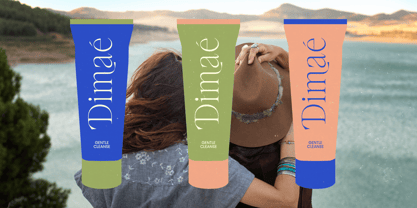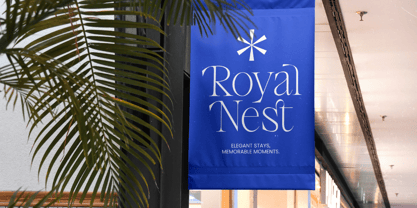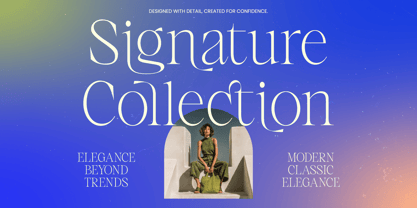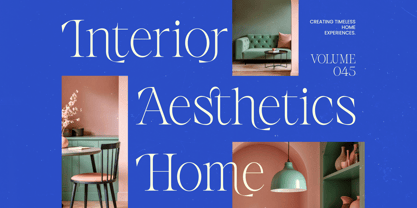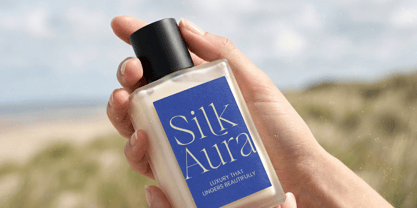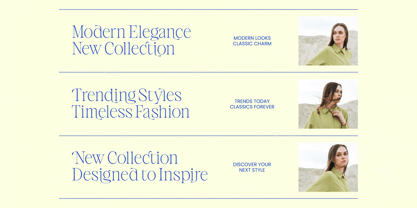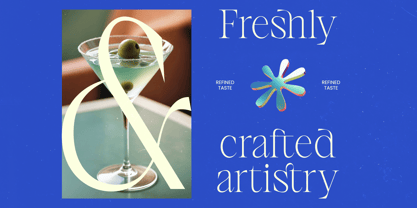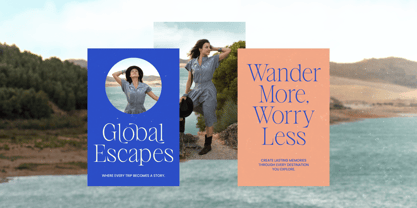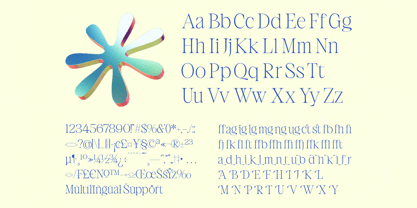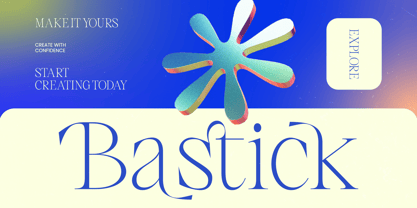
Bastick
by Timelesstype Studio
The Bastick Font Family was designed by Heru Utama Putra and published by Timelesstype Studio. Bastick contains 2 styles and family package options. More about this family
Elevate your visual identity with an unmatched sense of sophisticated elegance. Bastick - Thin Serif Display is a masterpiece of modern typography, blending refined aesthetics with a contemporary edge. This high-contrast serif font is designed for creators who demand artistic precision and a premium feel in every project. Its delicate lines and sharp serifs create a timeless appeal that captures attention instantly, making it a standout choice for high-end creative work.